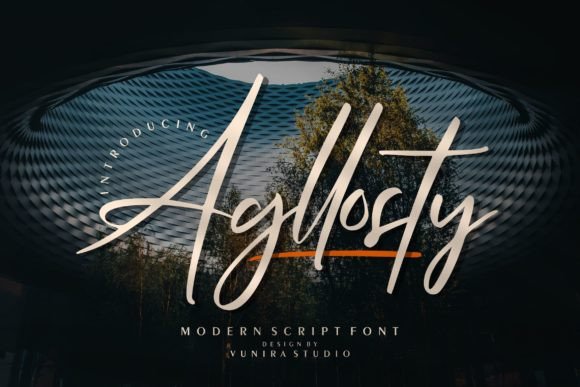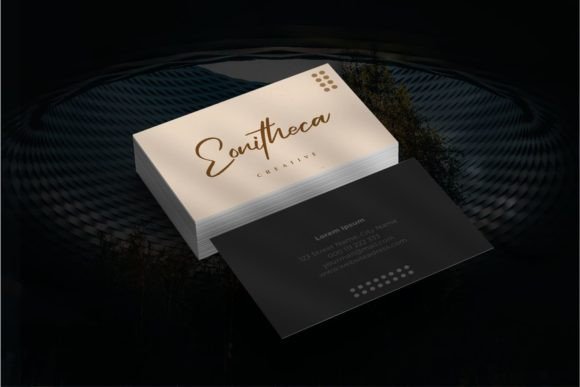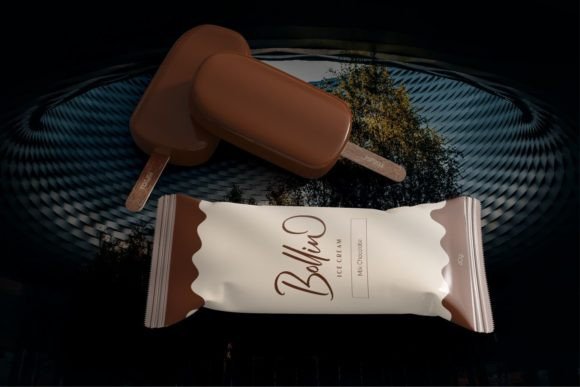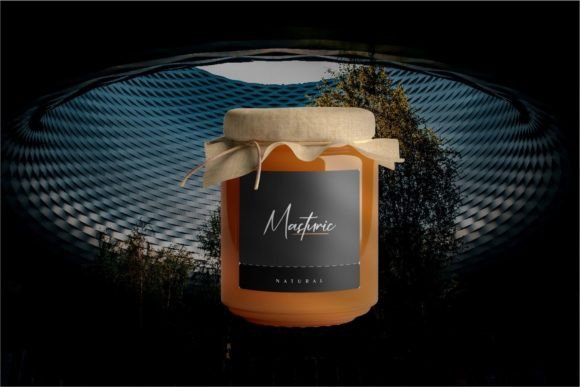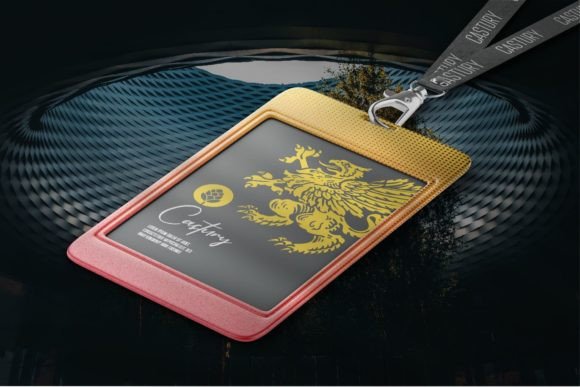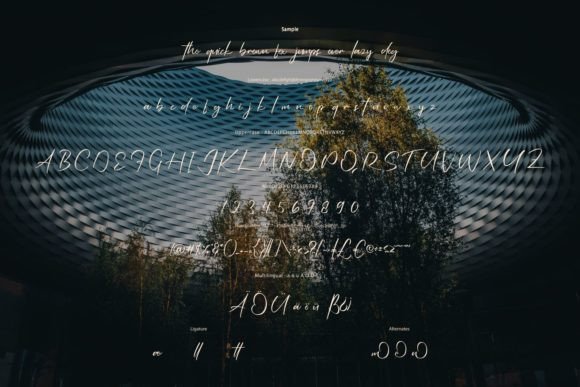
Agllosty Font
About Agllosty Font
Introducing Agllosty, a dazzling script font that is neatly crafted and highly detailed. This font is a wonderful asset to your font library, with the potential to enhance any creation, regardless of the topic.
The detailed and carefully crafted nature of Agllosty contributes to its charm, making it suitable for a wide range of design applications. Whether you’re working on branding materials, invitations, product packaging, or any creative project, Agllosty is designed to add a touch of dazzle to your designs.
Consider using Agllosty to create eye-catching branding materials that stand out, add a touch of elegance to your invitations, or enhance the visual appeal of product packaging. The script style of Agllosty ensures that your text is not only detailed but also carries a sense of charm and sophistication.
In essence, Agllosty is more than just a font; it’s a design tool that brings a dazzling quality to your projects. Let it be the script font that elevates your creations, making them detailed, charming, and truly standout in any context.